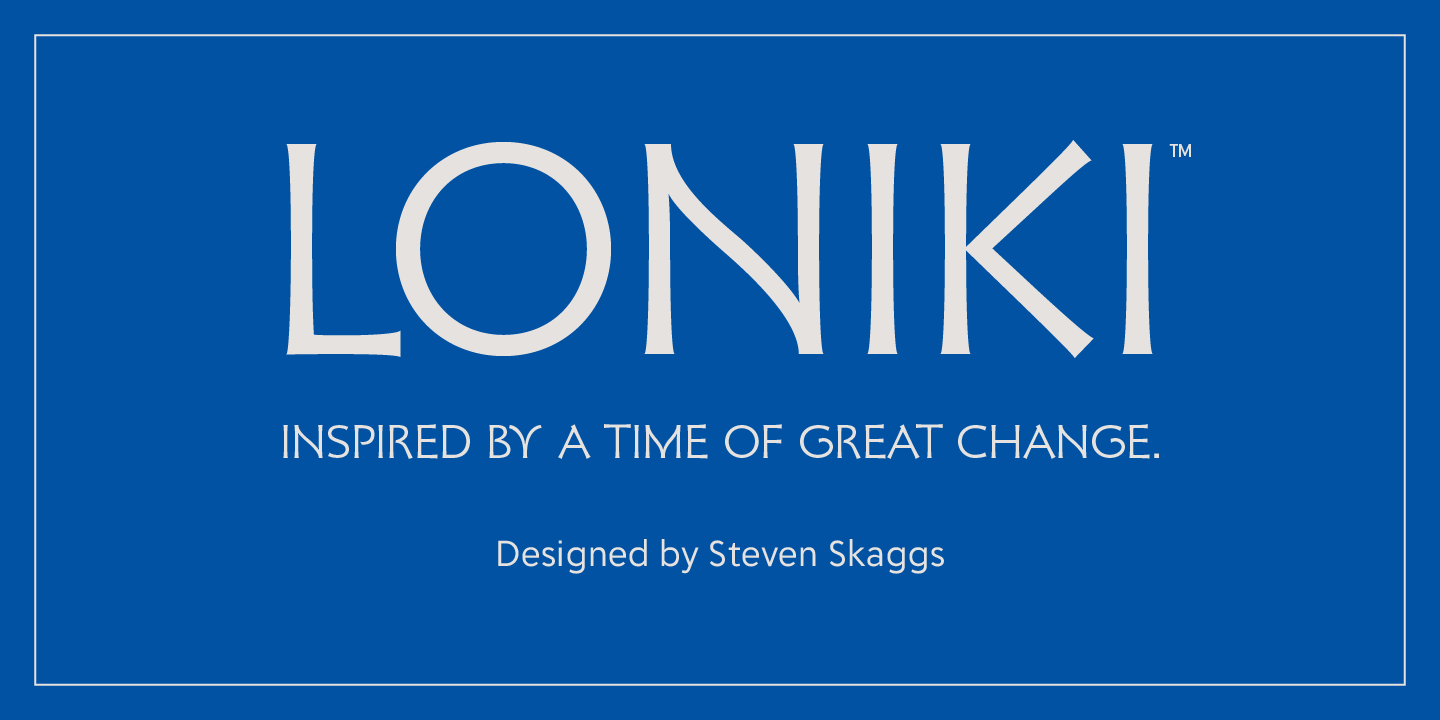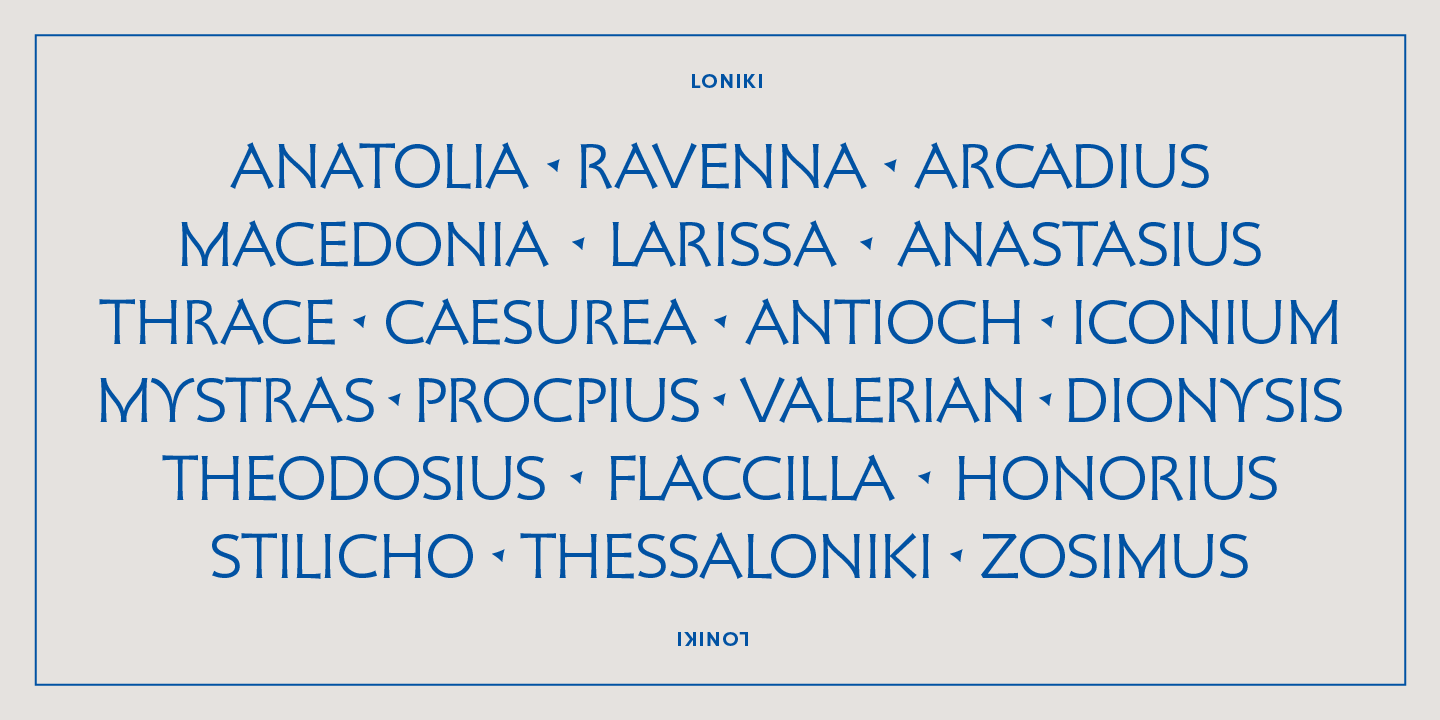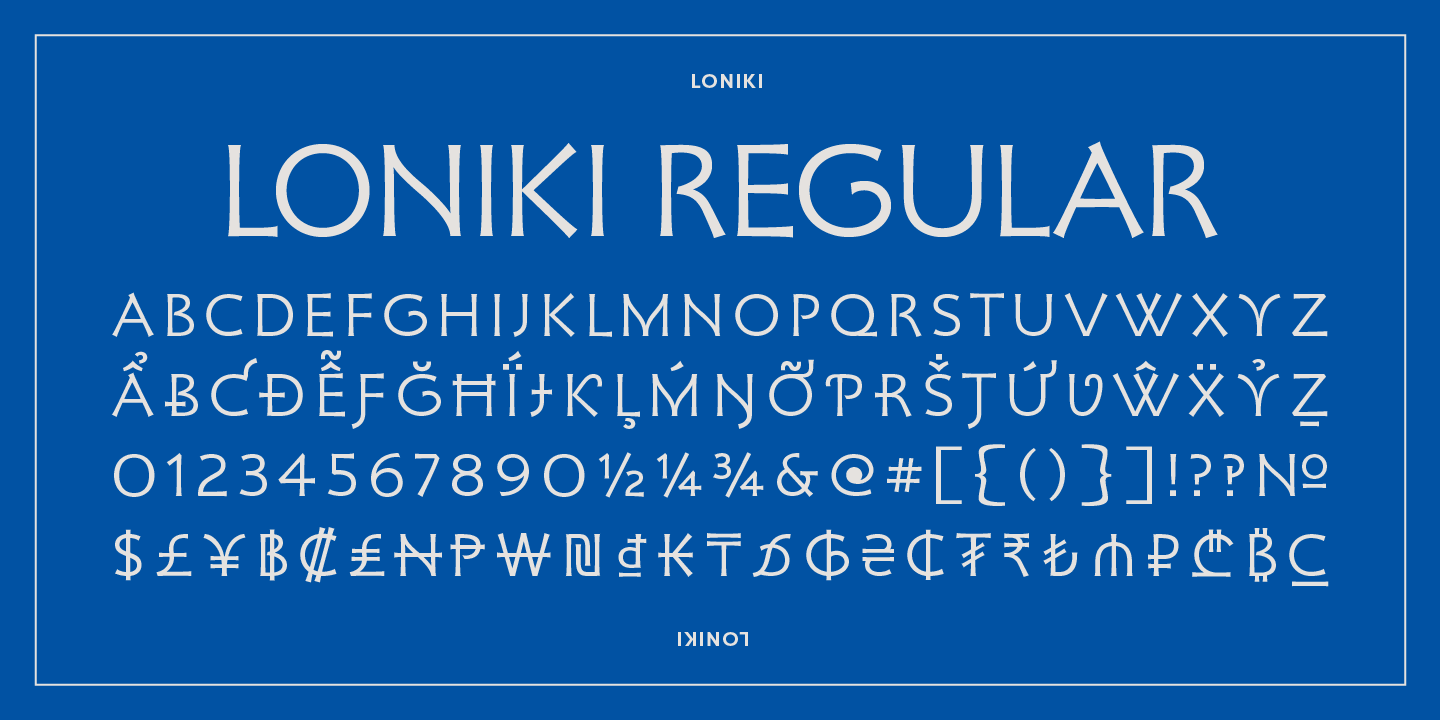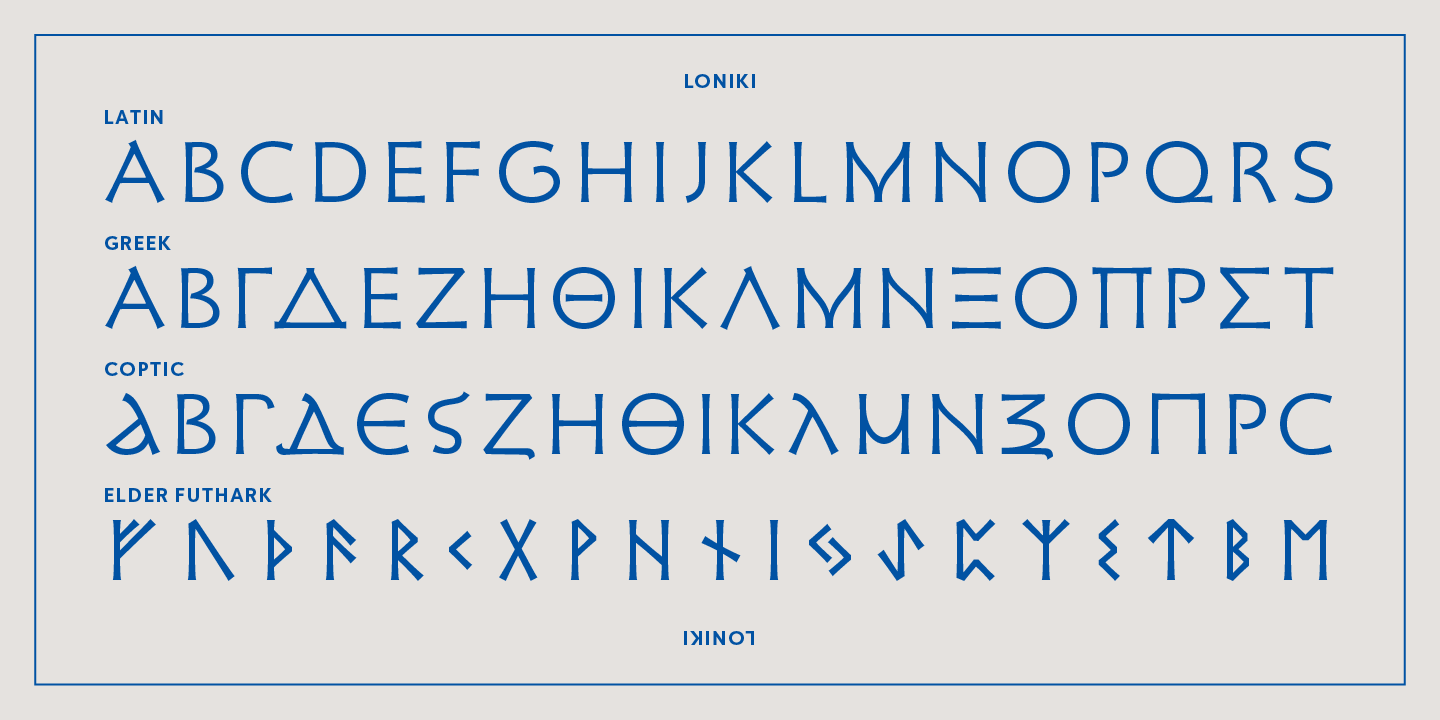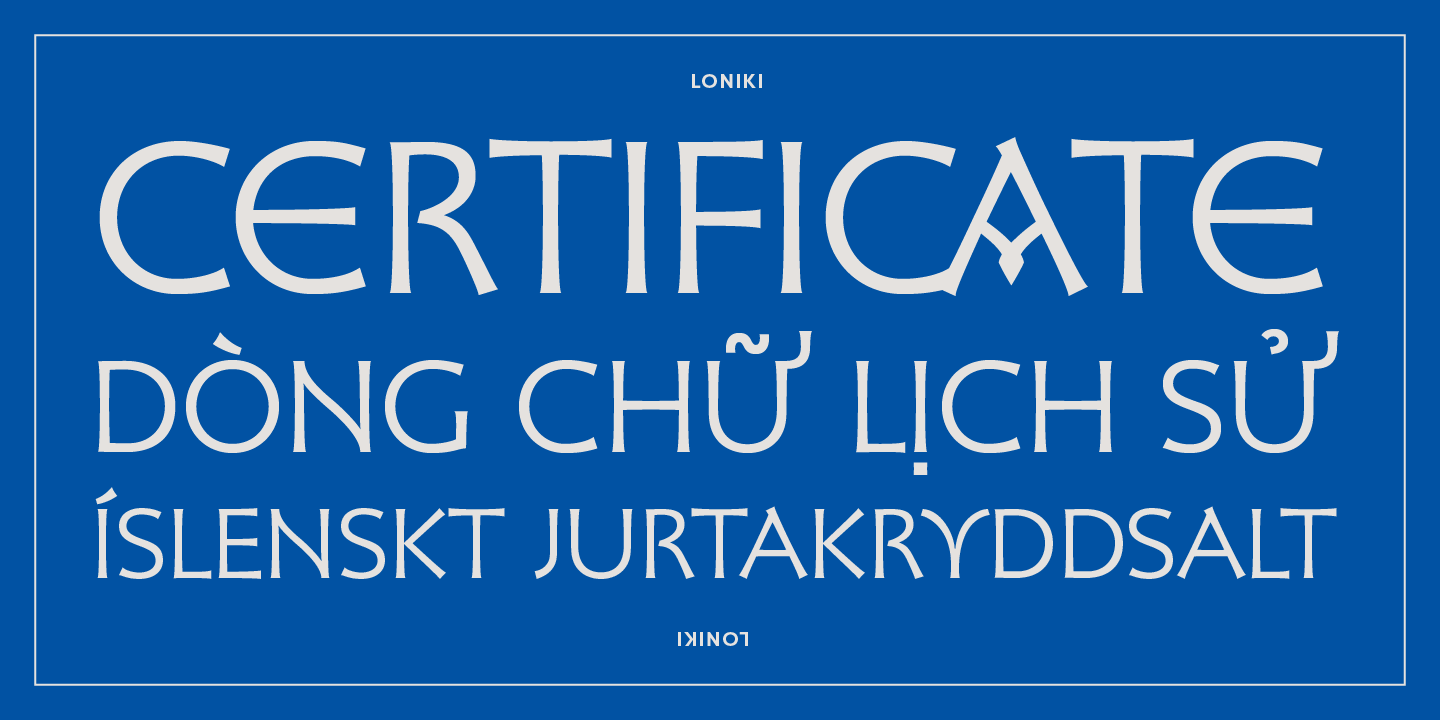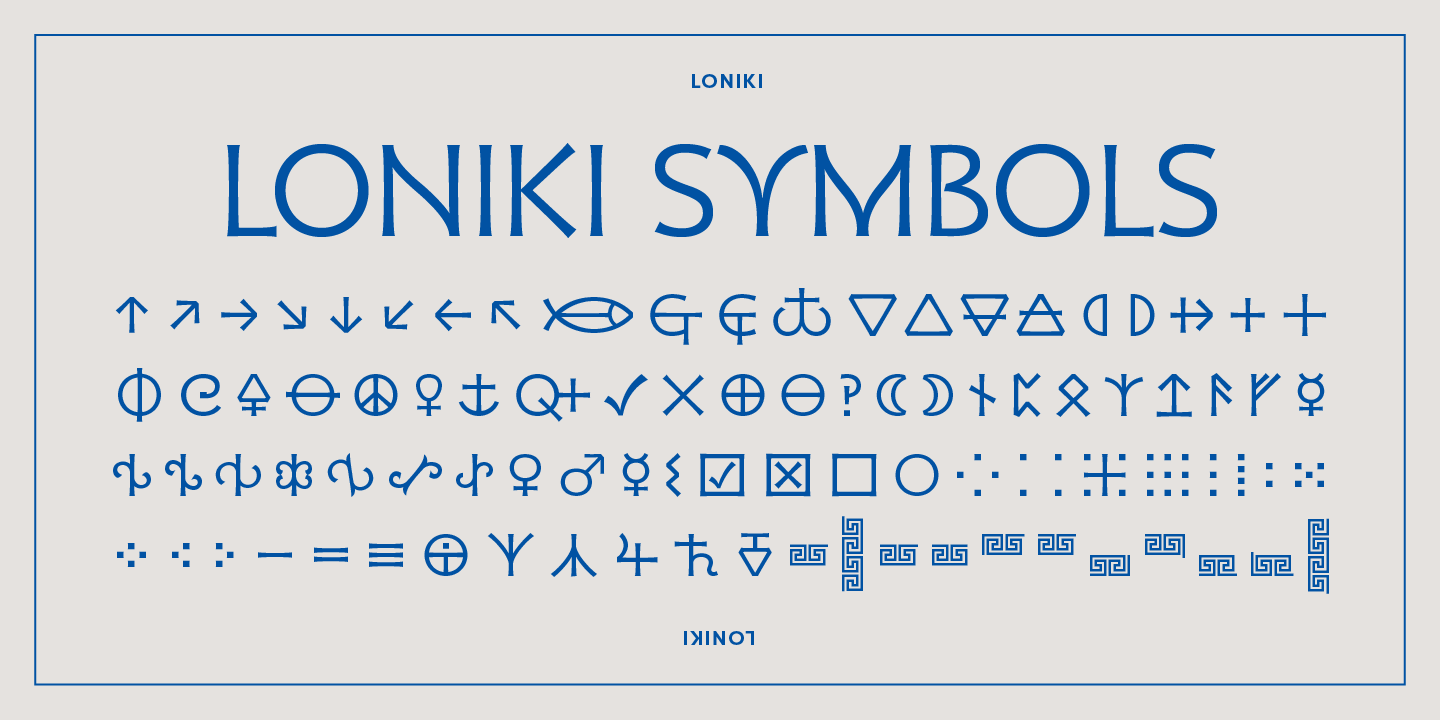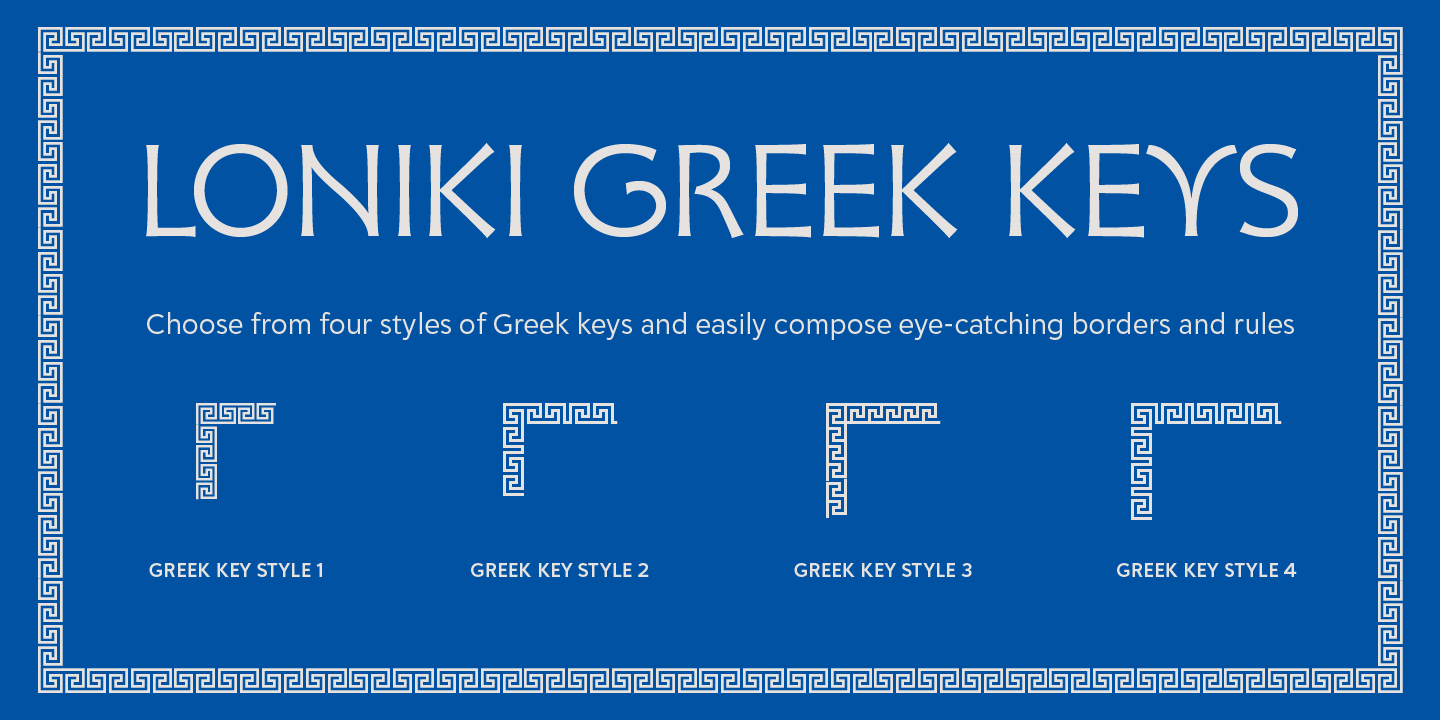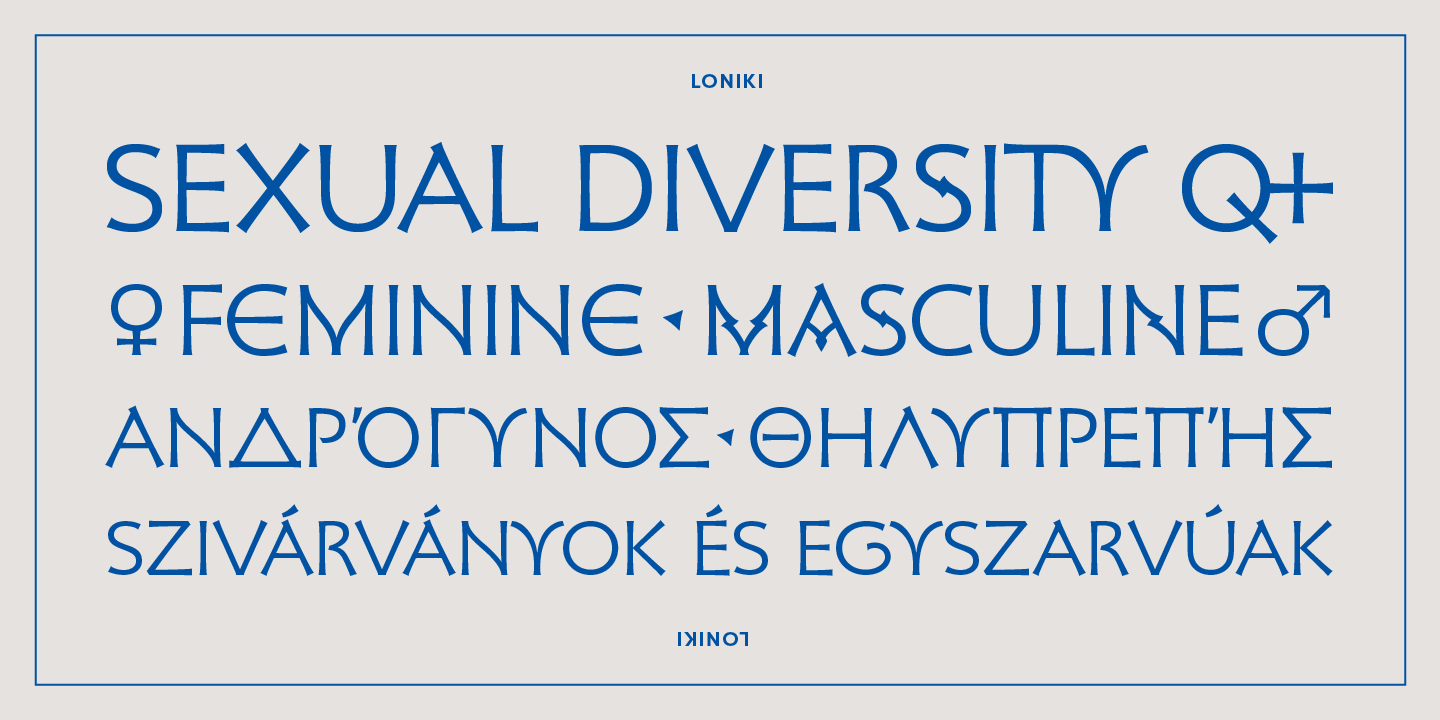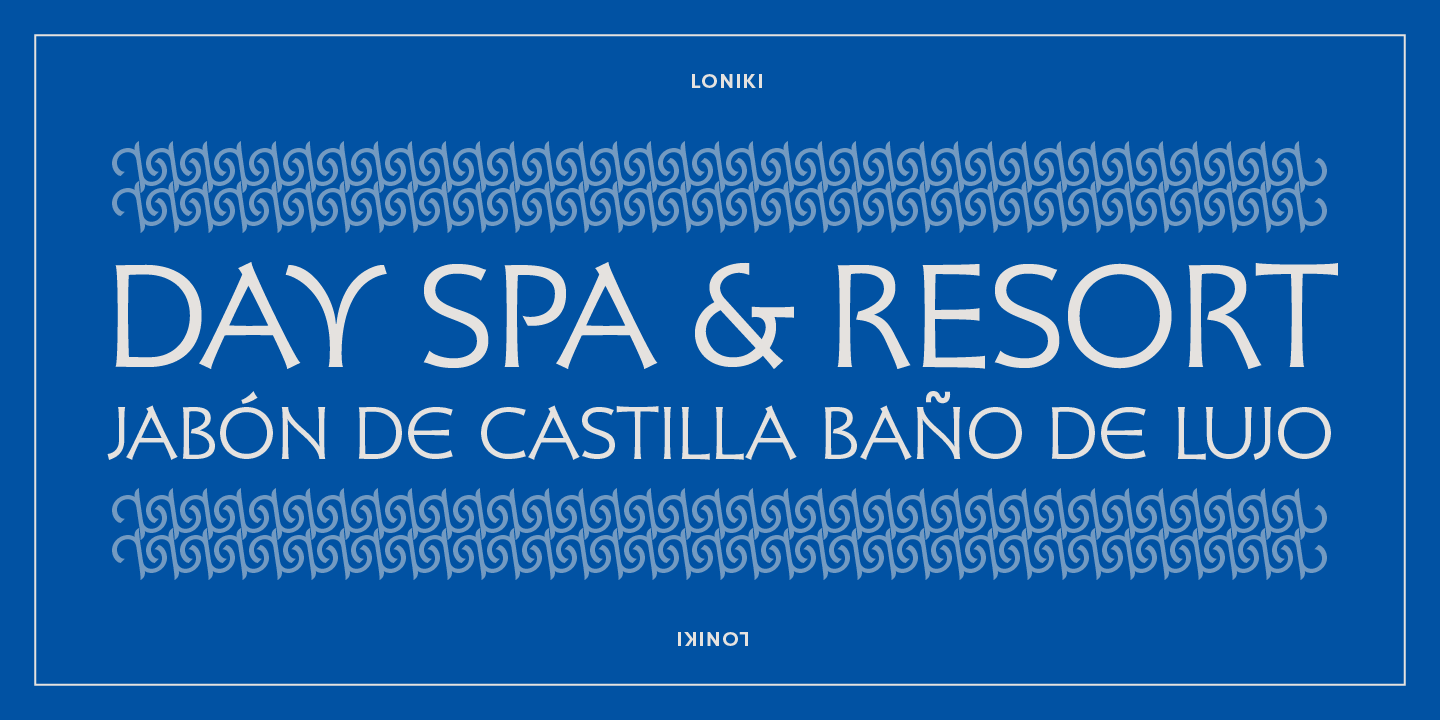
Loniki
"Loniki" is the nickname locals use for their beloved ancient city Thessaloniki in Greece. In the city's archeology museum is an inscription from the 5th century that embodies the blend of cultures that were prevalent there at the time. That inscription, with its rational geometry and sinuous curves, is the basis for the development of Loniki. Its form suggests a stirring mix of masculine and feminine, east and west, classical, byzantine and gothic. It's a type form that is highly emblematic - not only of late antiquity, but of our own time as well. Available in two styles: Regular and Symbols, Loniki is not only distinctive and beautiful, it is also one of the most versatile display fonts. The large glyph repertoire of Loniki supports 229 languages, including Greek, Polytonic Greek, Coptic, Vietnamese, and a panoply of African languages. And with Loniki, you can readily shift stylistic expression to a remarkable degree simply by selecting from the plentiful discretionary ligatures and stylistic alternates, allowing the cultural mood of the design to change from classical to gothic or blend them as you like. Meanwhile, Loniki Symbols provides more than 140 symbols, devices, and ornaments including astronomical, alchemical, esoterica, vines, Greek keys and meanders. Use Loniki Symbols to extend Loniki's aesthetic to other elements of your layouts. There is even a set of Futhark runes, lest we forget the Goths.